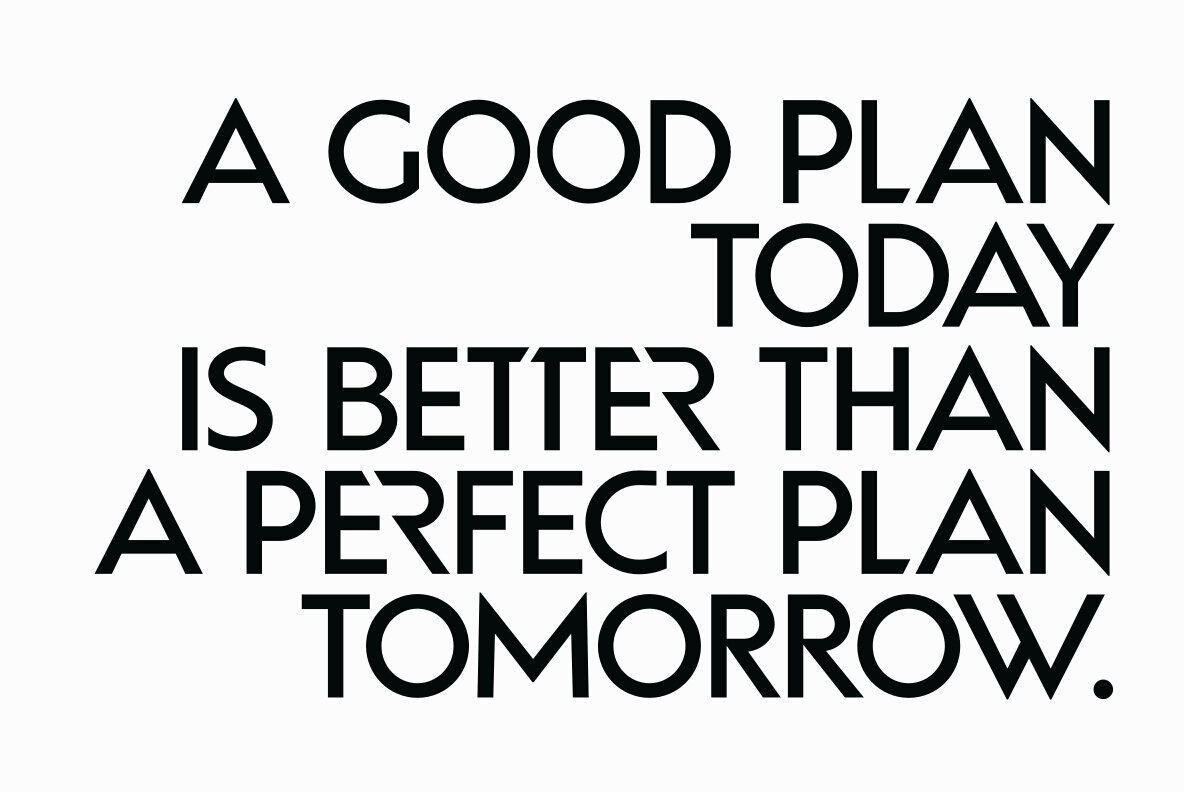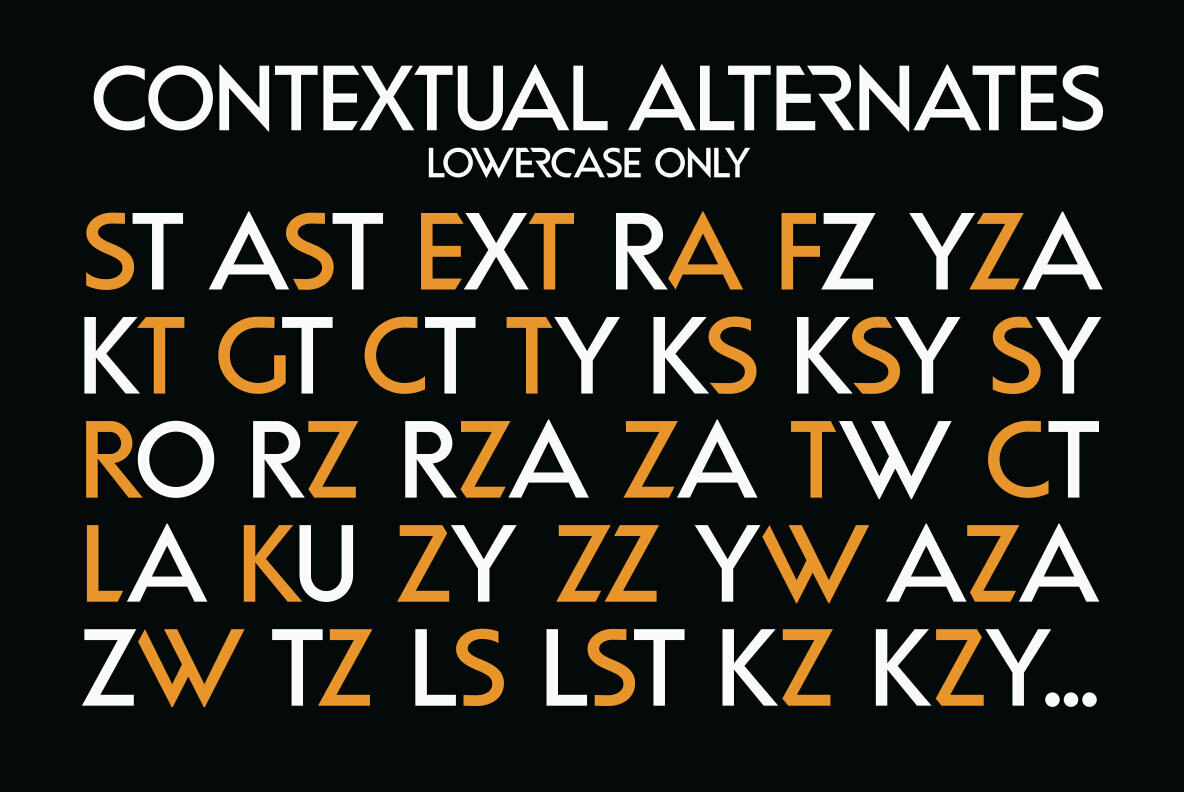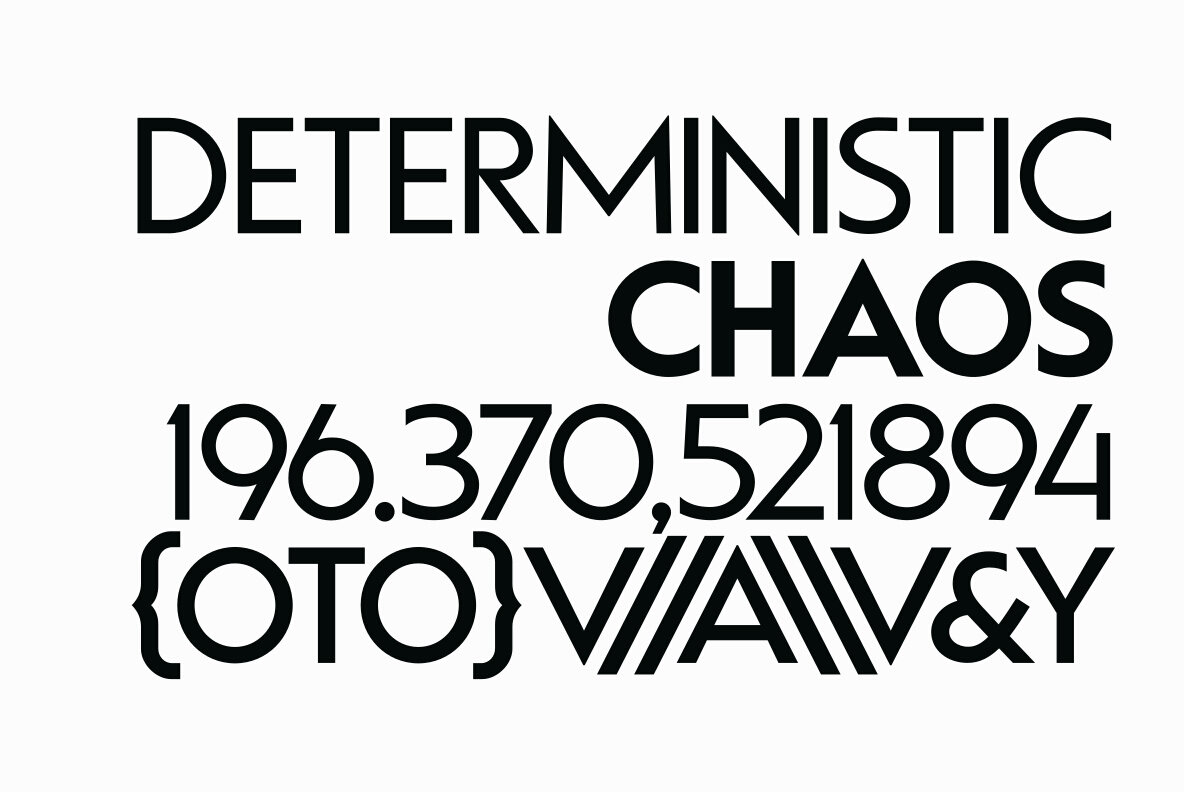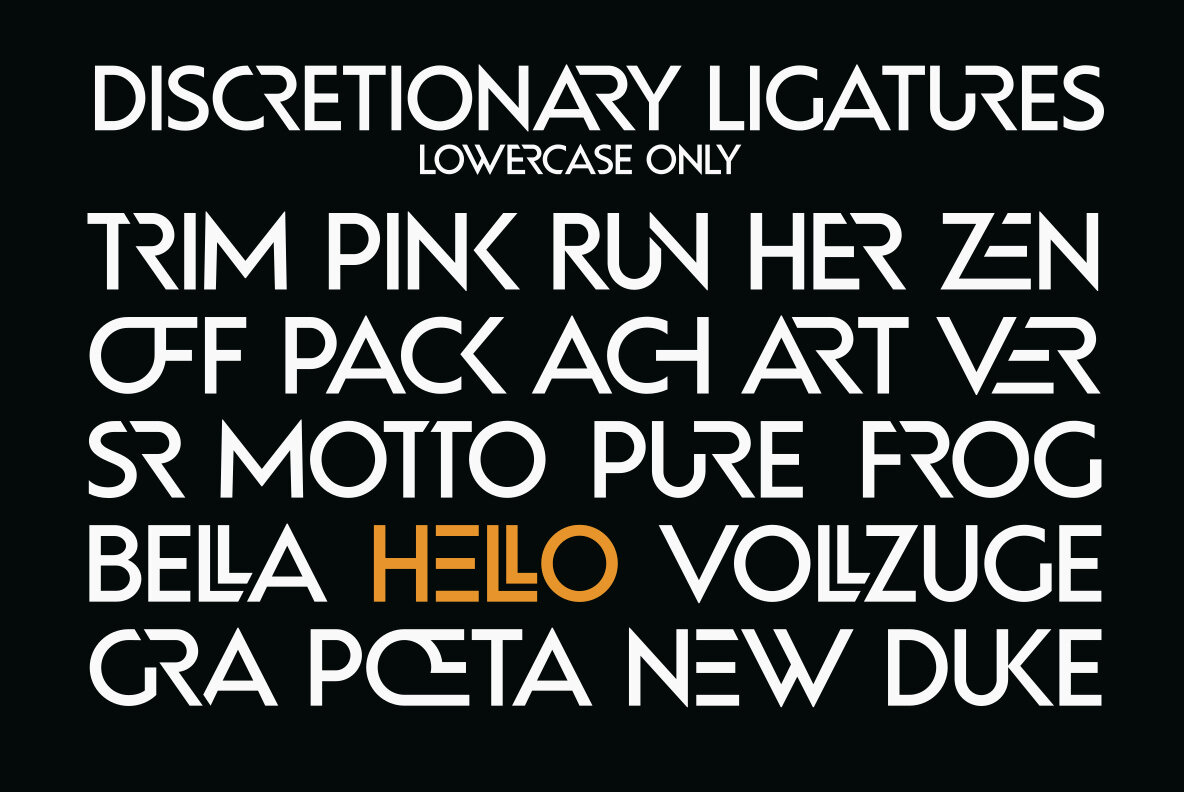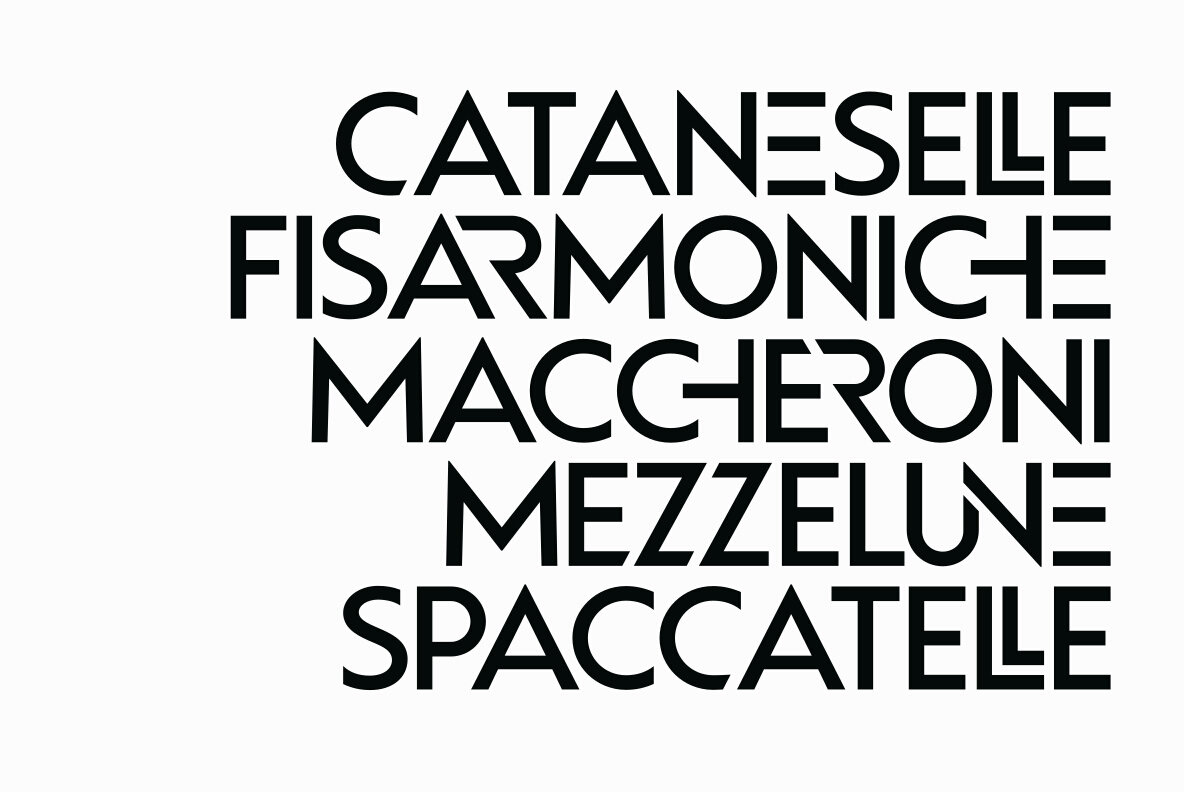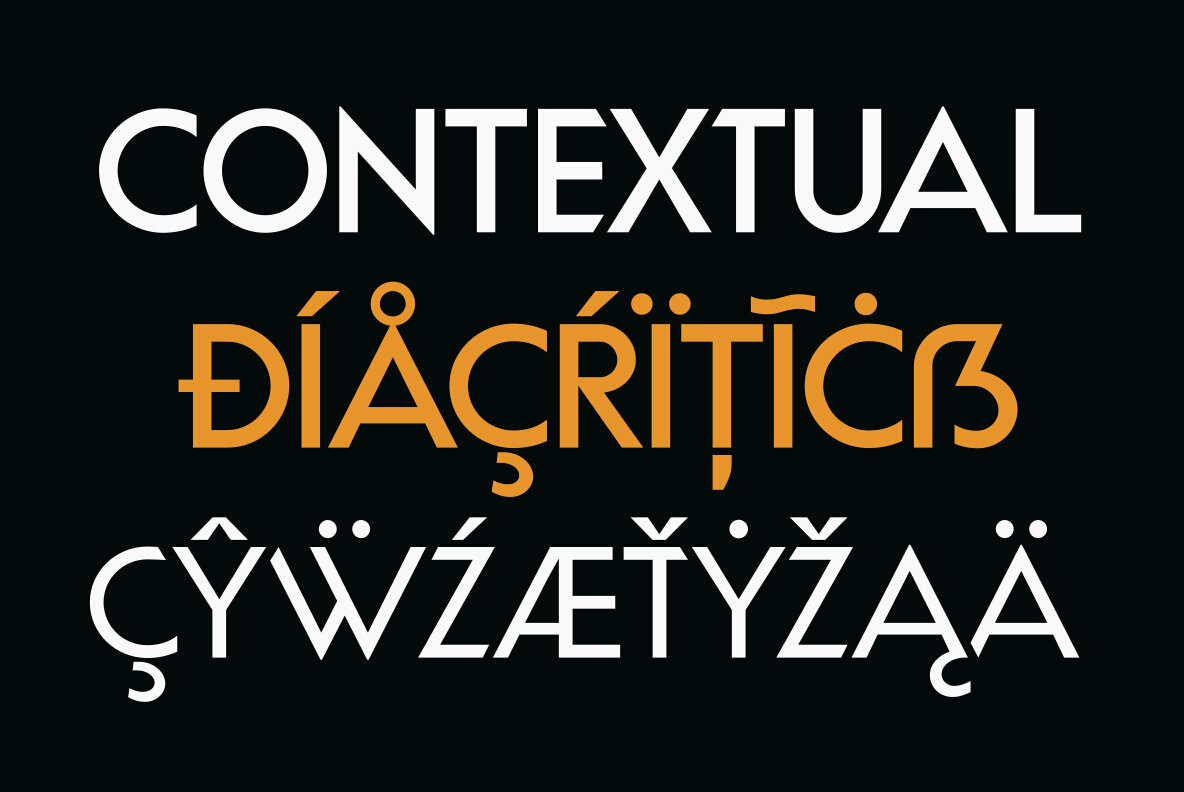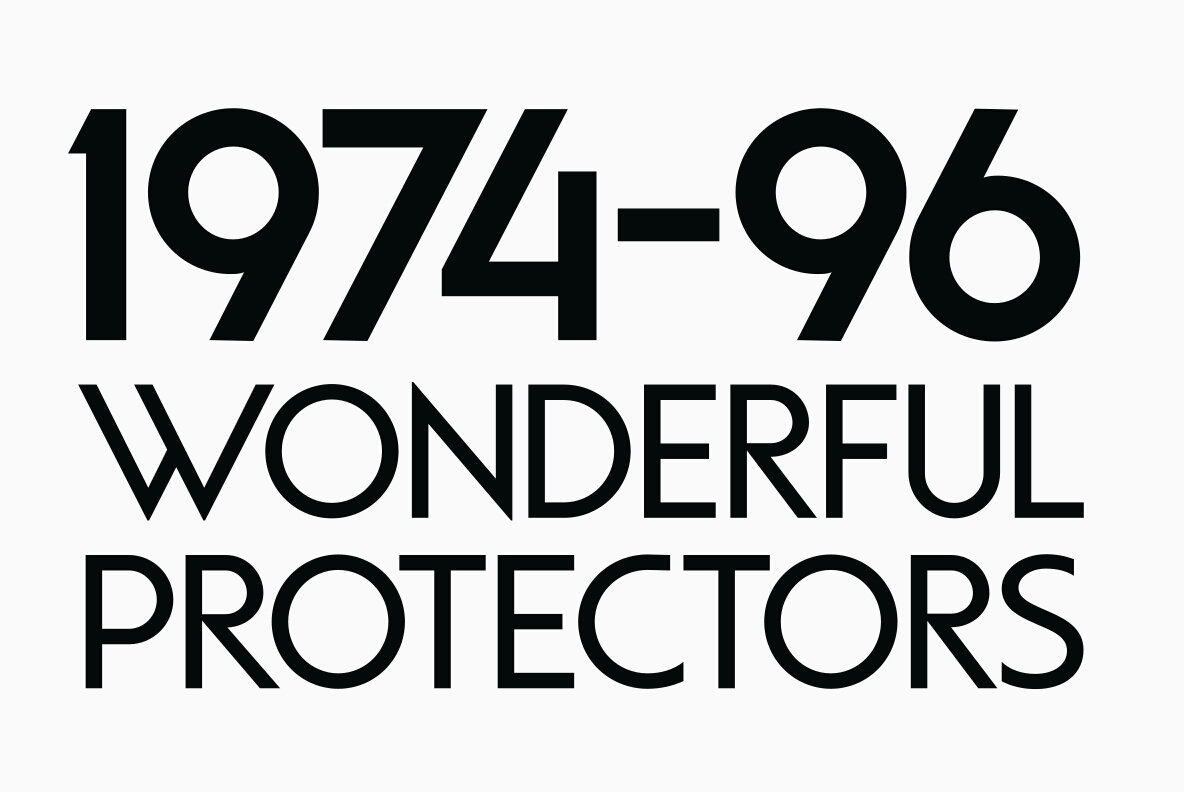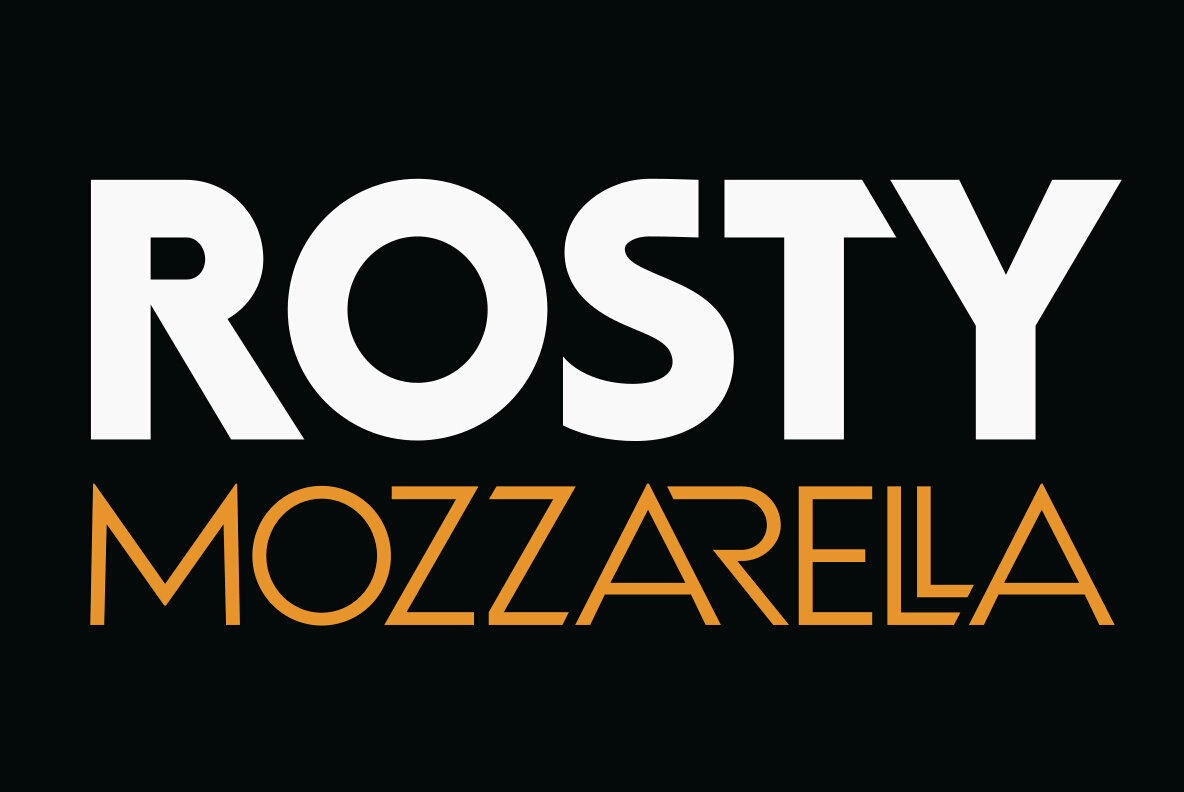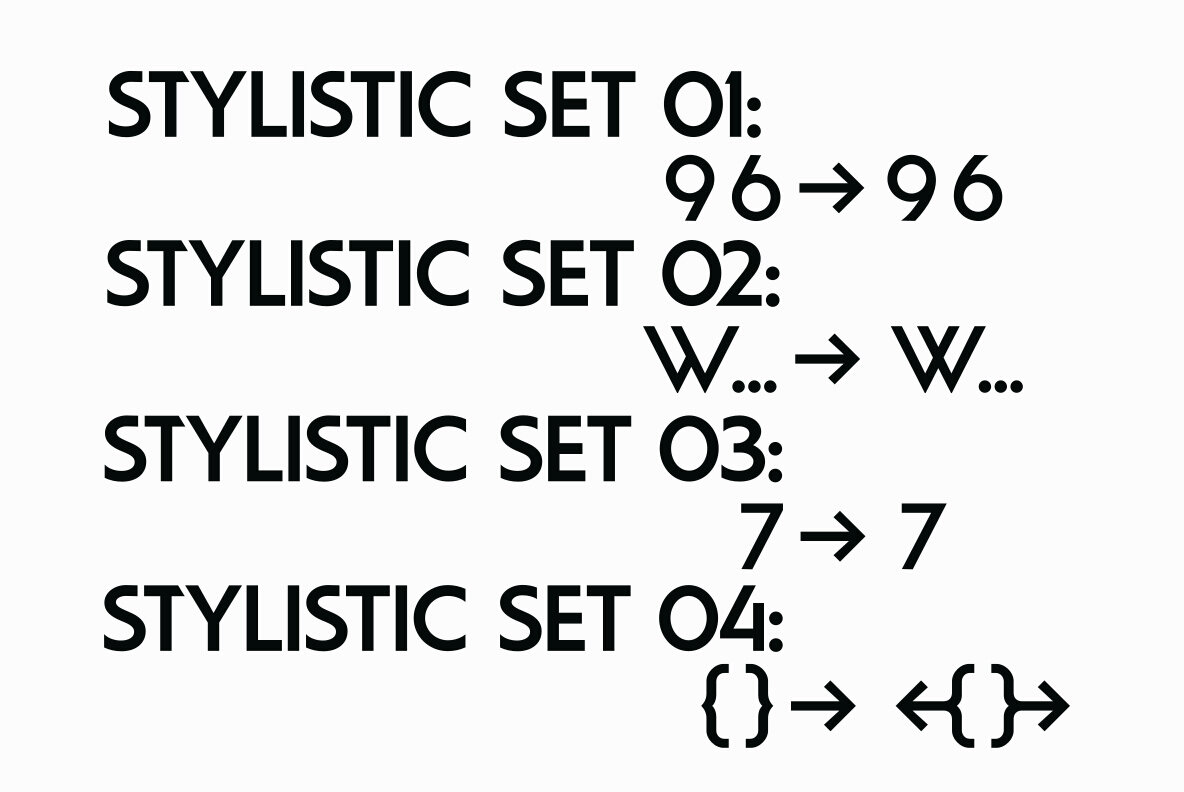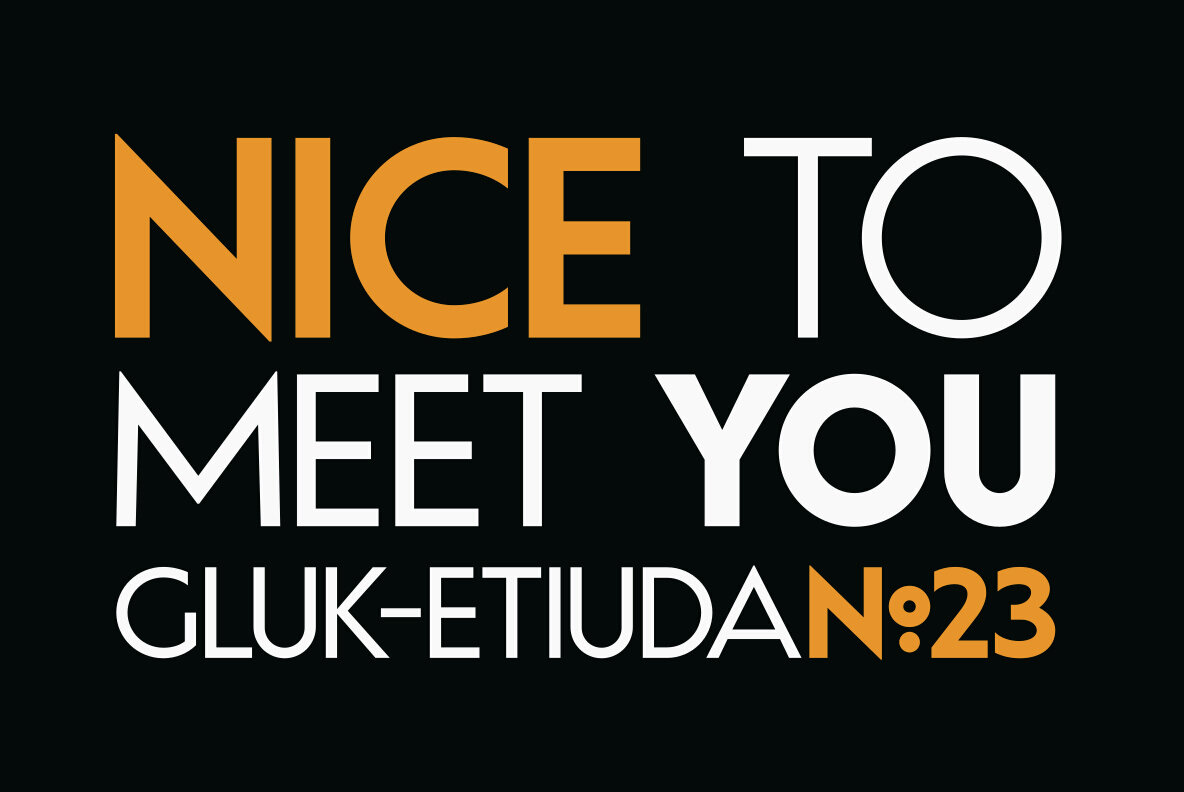
Gluk Etiuda No23 Font
Gluk Etiuda №23 is a geometric sans serif (uppercase) family. It comes in 6 weights - from Light to Black. Perfect for graphic design, branding, packaging design but very versatile. With over 600 alternate glyphs, this font has extensive Latin language support for Western, Central, and Eastern European and gives text a unique, elegant and modern feel. Use lowercase for contextual power, taste Decorative Ligatures and 4 Stylistic Sets or use UPPERCASE for classic style & Have Fun!